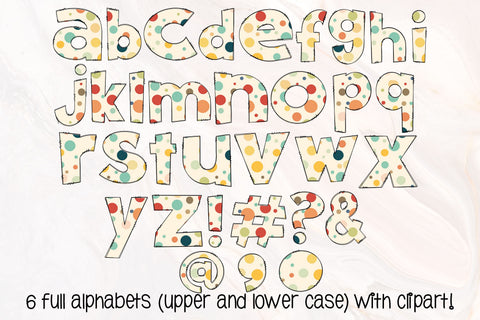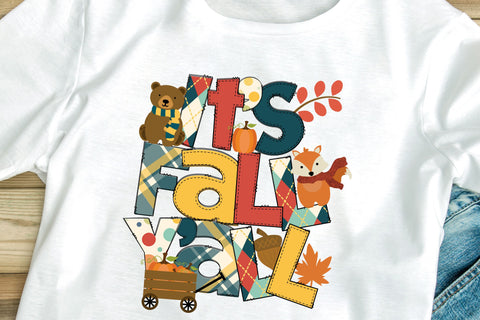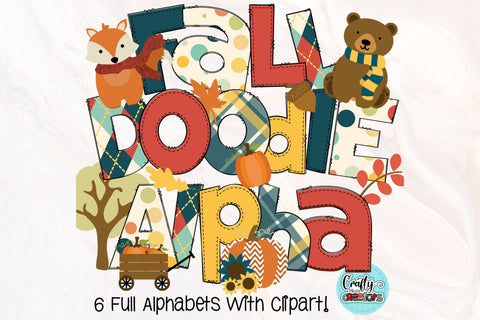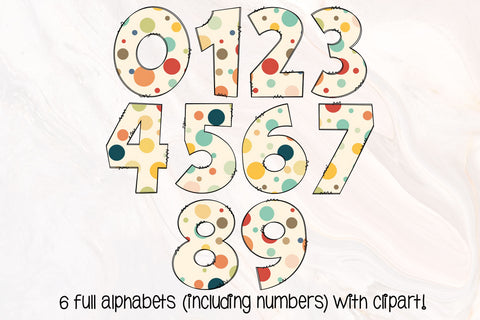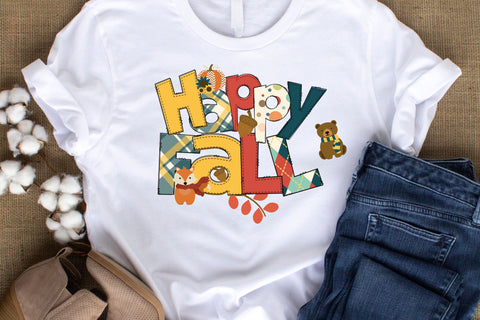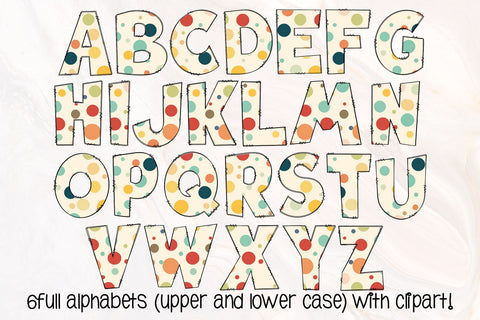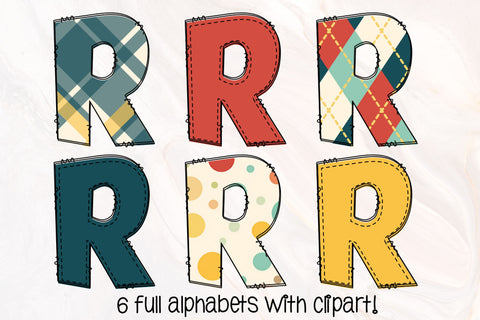
Fall Doodle Letters PNG, Autumn Alpha Bundle
6 Complete Doodle Sets Including: captial, lowercase, numbers, and special characters
- Capital letters A to Z
- Lowercase letters A to Z
- Numbers 0-9
- Bonus Characters
- Clipart